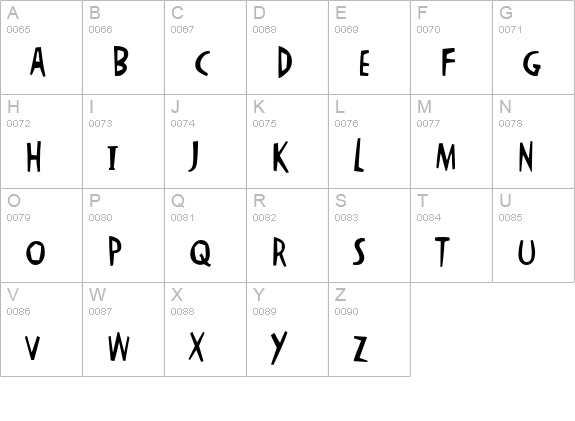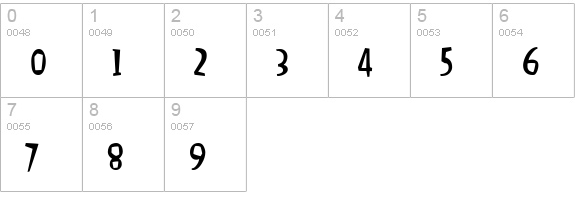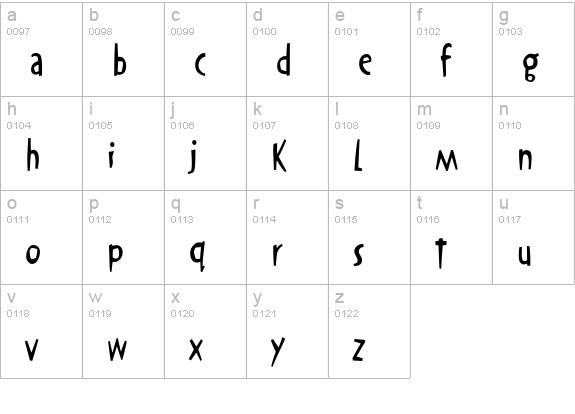
OkrienHmk Font Details
Introducing OkrienHmk, a captivating and versatile font that effortlessly combines elegance with modernity. This typeface features sleek lines and a stylish appearance that will enhance any design project it graces. OkrienHmk is perfect for branding, logos, headlines, and more, adding a touch of sophistication to your creations. The best part? OkrienHmk is completely free to use! You can download this stunning font at FontsMarket.com and start incorporating its unique charm into your designs today. Don't miss out on the opportunity to elevate your projects with the timeless appeal of OkrienHmk.